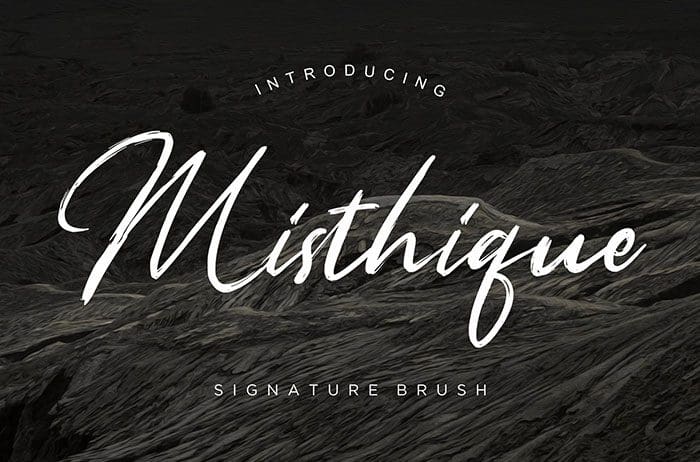
Misthique Script Font
Misthique Script Font is a signature brush with rough and natural movement that will make your project looks awesome. Thanks to Creatype Studio for sharing this font! Take a look at this portfolio for more of his stunning fonts.